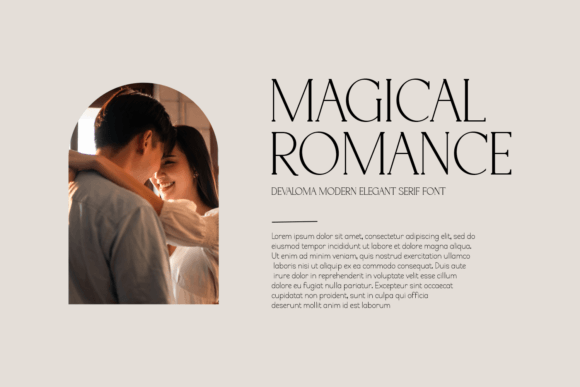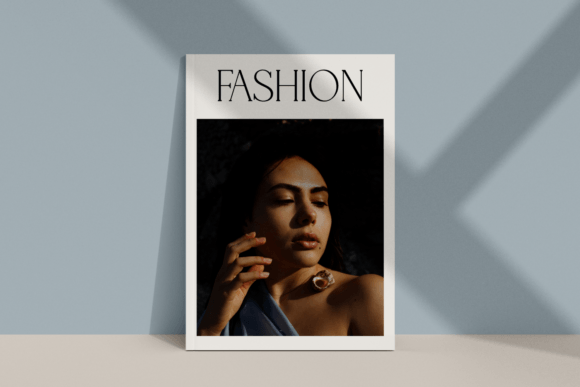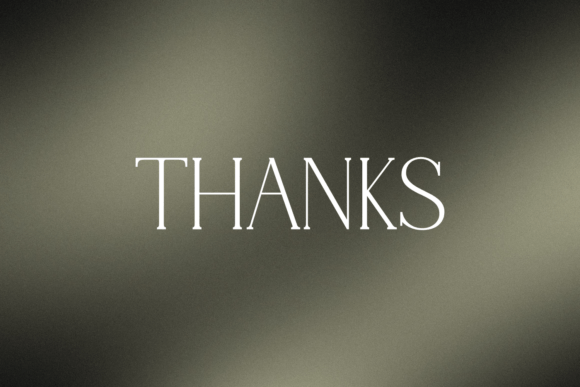
Introducing Devaloma Font: Elevate Your Designs with Elegance and Readability
In the world of typography, fonts play a crucial role in conveying the tone and personality of a design. For designers and crafters seeking a typeface that embodies sophistication and refinement, Devaloma Font is an exceptional choice. This beautiful serif font strikes a perfect balance between elegance and readability, making it an ideal selection for a wide range of applications.
The Characteristics of Devaloma Font
Devaloma is a gracefully designed serif font that boasts soft curves and a classic aesthetic. Its refined features make it particularly well-suited for use in headings, invitations, and other design elements where a touch of luxury is desired. The font’s elegant appearance can instantly elevate the visual appeal of any text, transforming it into a sophisticated and eye-catching piece.
One of the standout qualities of Devaloma Font is its versatility. Whether you’re working on a print project, such as a wedding invitation or a luxury brand brochure, or a digital design, like a website header or a social media graphic, Devaloma can adapt seamlessly. Its clear and readable design ensures that your message is conveyed effectively, while its aesthetic appeal adds an extra layer of sophistication.
Key Benefits for Designers and Crafters
- Elegance and Sophistication: Devaloma brings a level of refinement and class to your designs, making it perfect for projects that require a sophisticated look.
- Readability: Despite its elegant design, Devaloma remains highly readable, ensuring that your text is easy to understand and visually appealing.
- Versatility: Suitable for both print and digital applications, Devaloma can be used across a variety of design projects.
- Classic Appeal: The font’s classic design ensures that it will remain timeless, avoiding the risk of quickly becoming outdated.
Using Devaloma in Your Designs
Tips for Maximizing Devaloma’s Impact
- Pair with Complementary Fonts: For body text, consider pairing Devaloma with a clean, sans-serif font to create visual contrast and enhance readability.
- Adjust Line Spacing: Ensure that your text is easy to read by adjusting the line spacing. A slightly increased line height can improve readability, especially in longer texts.
- Play with Colors: Devaloma looks stunning in a variety of colors. Experiment with different shades to find the one that best suits your design’s mood and purpose.
Devaloma Font is a beautiful and versatile typeface that can add a touch of elegance and sophistication to any design. Its combination of classic design, soft curves, and high readability makes it an excellent choice for designers and crafters looking to elevate their projects. Whether you’re creating a luxurious brand identity, a wedding invitation, or a digital graphic, Devaloma is sure to make a lasting impression.